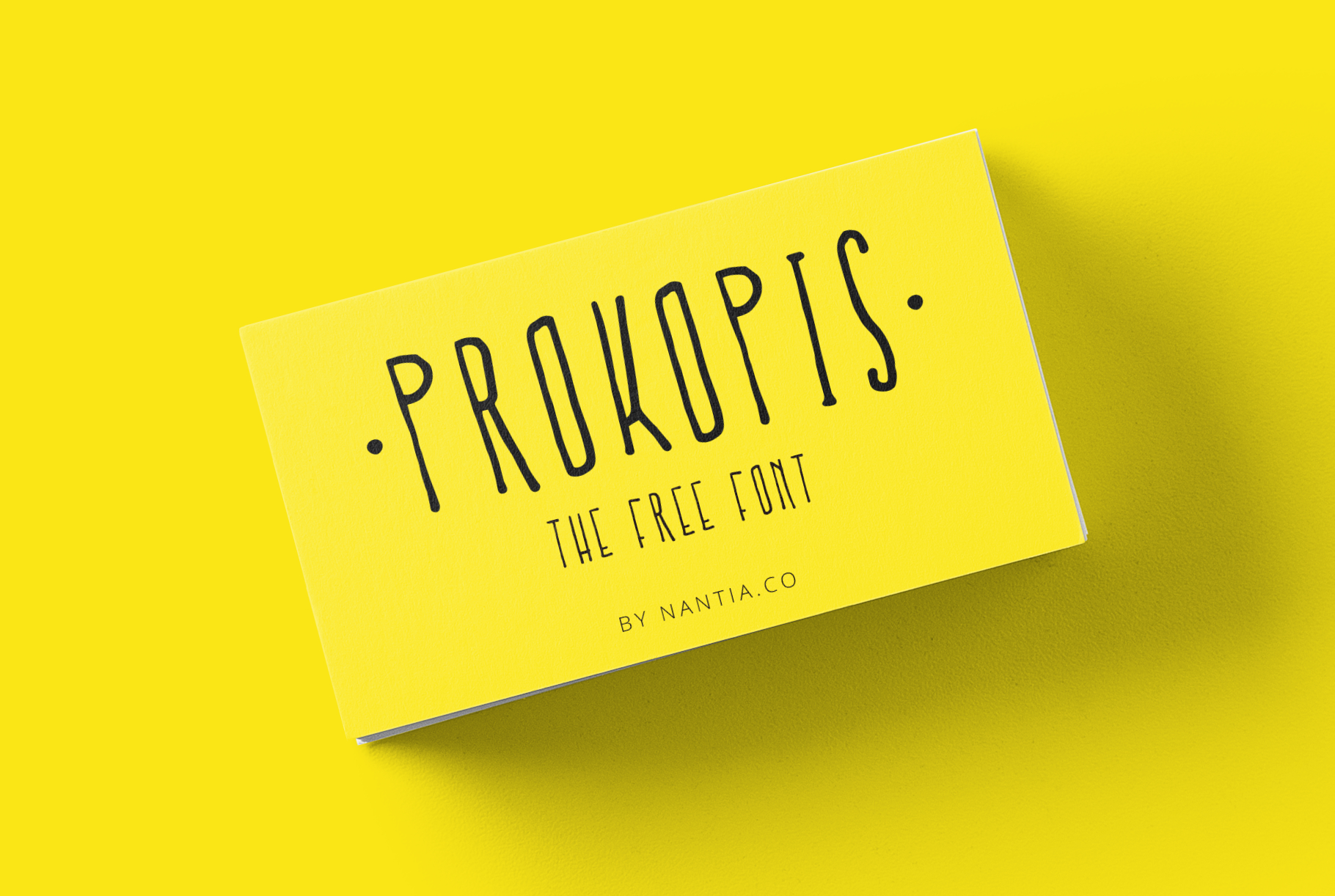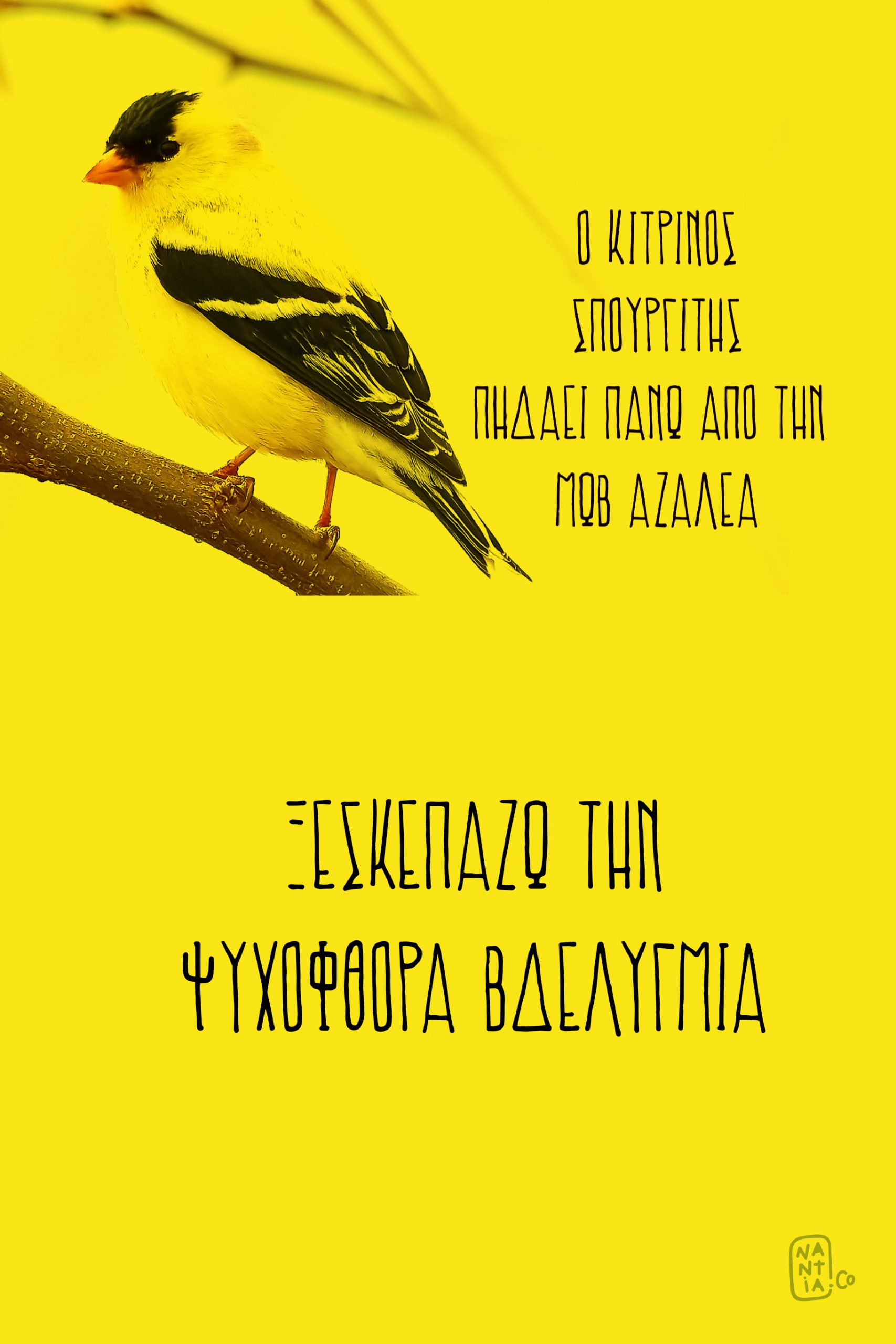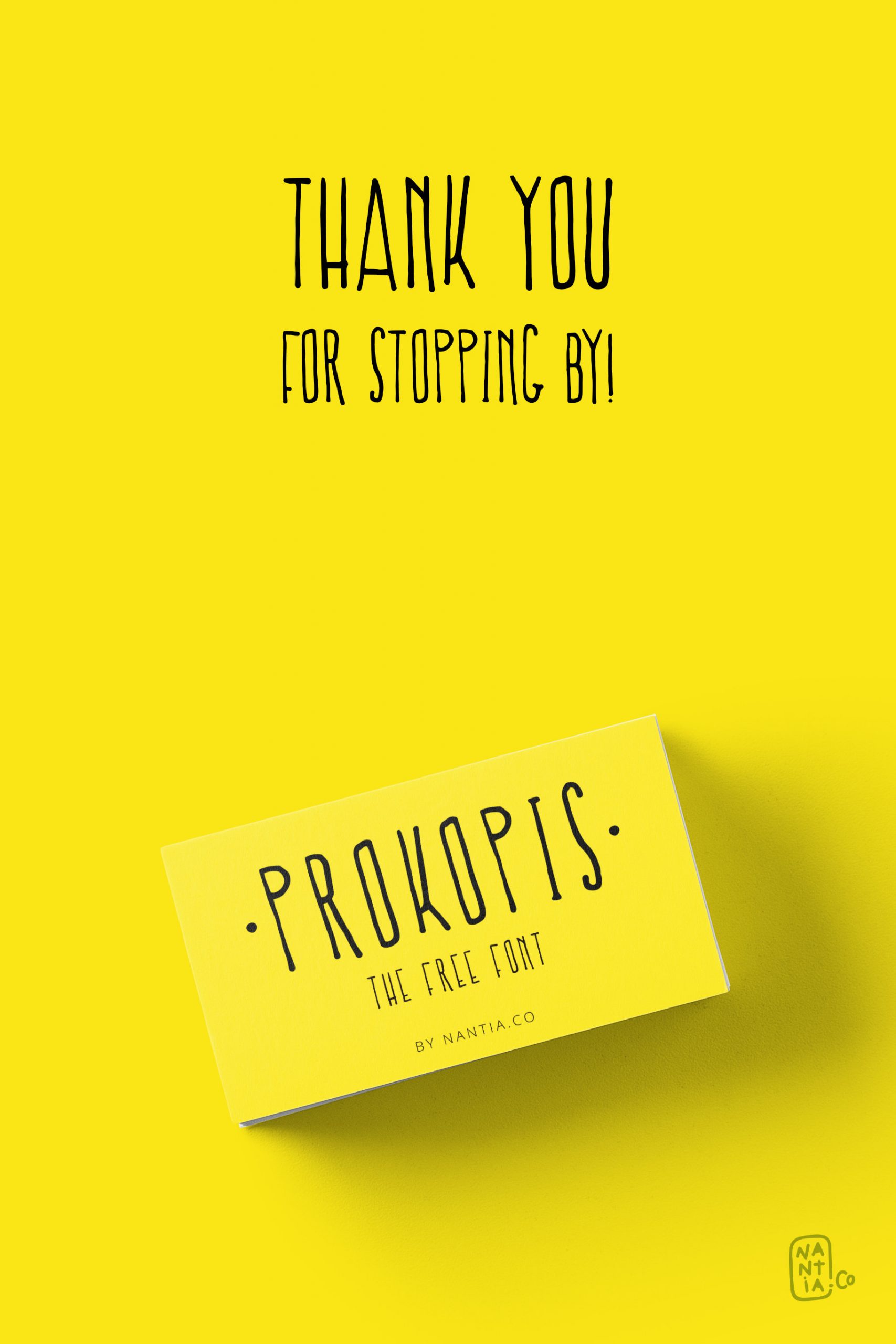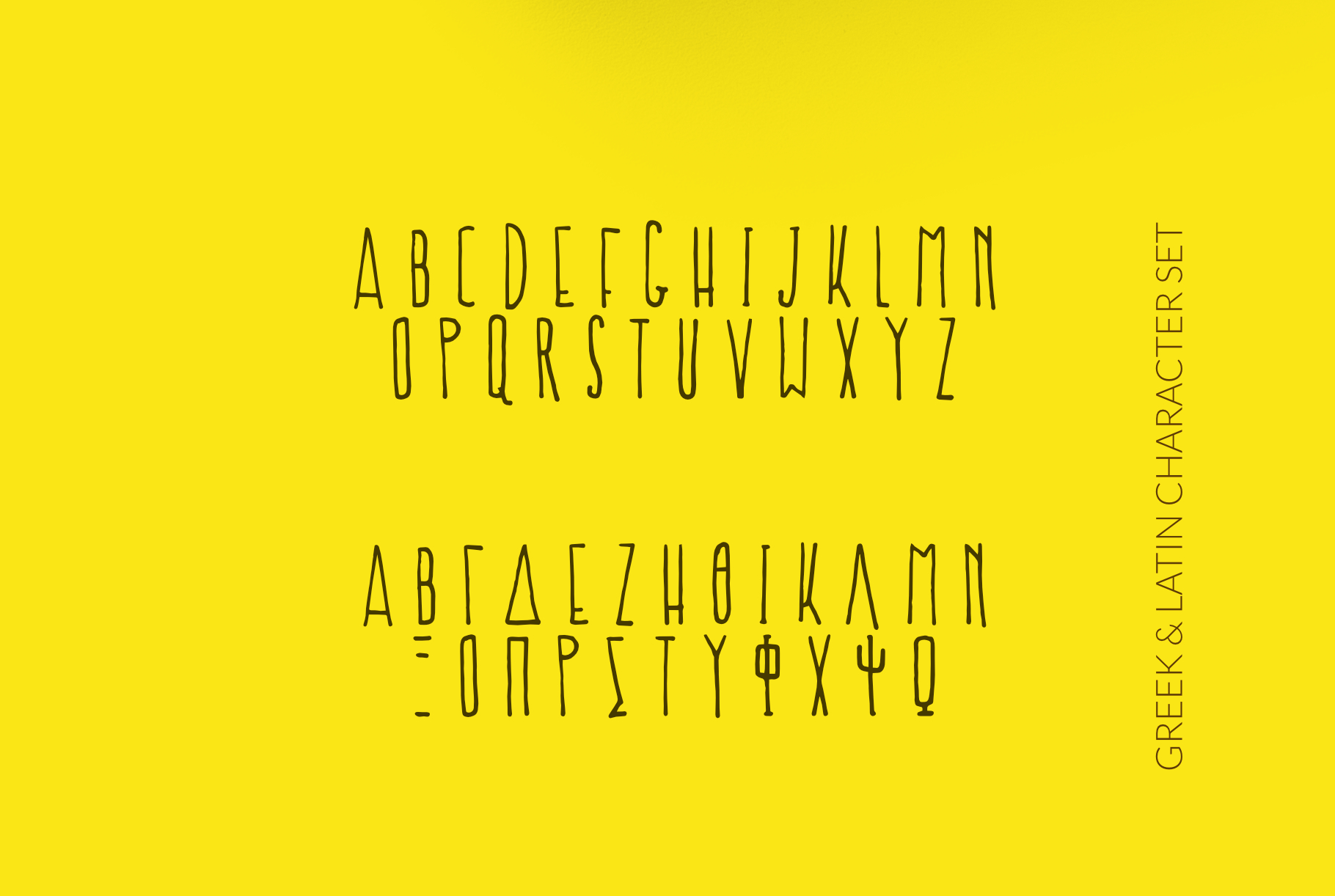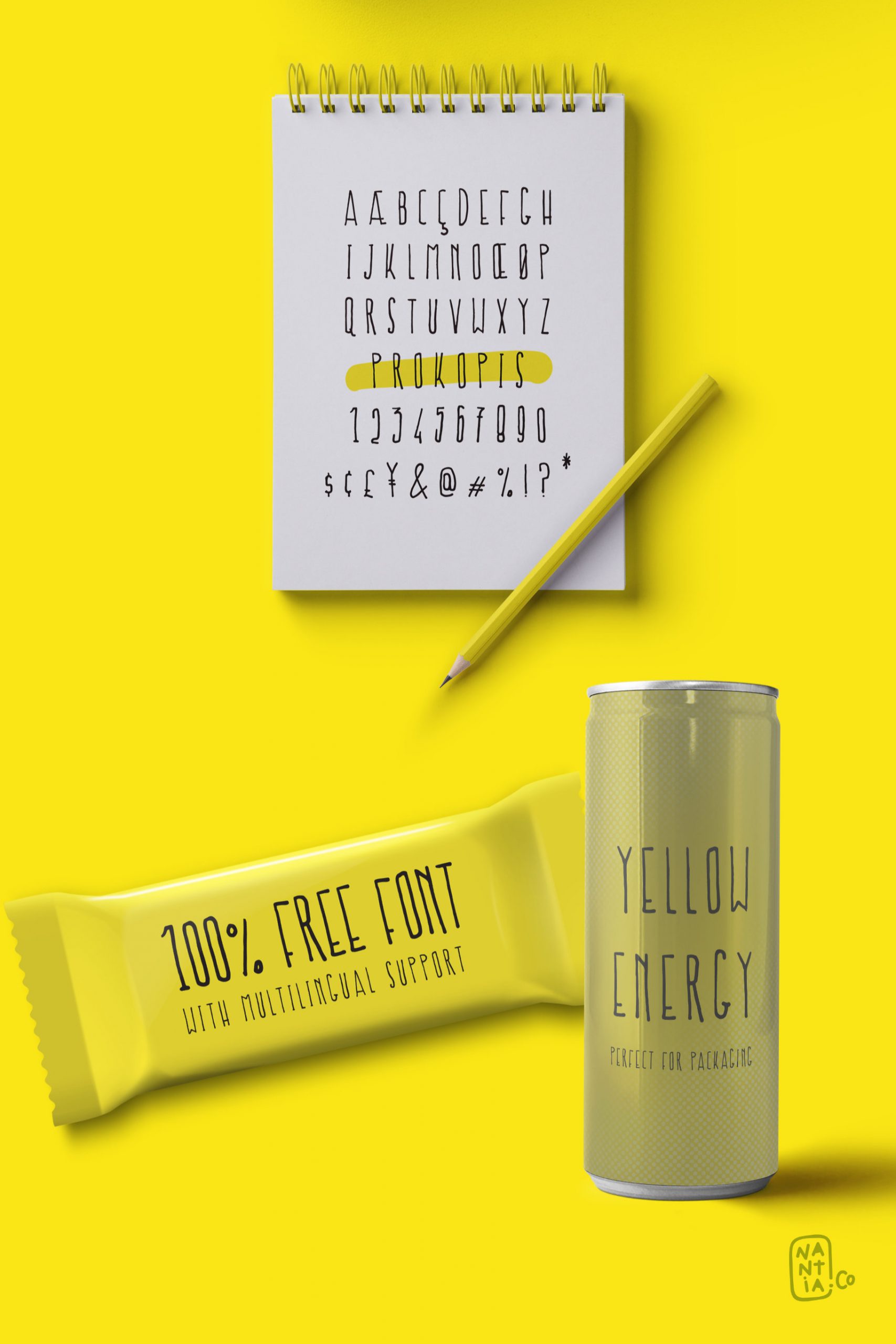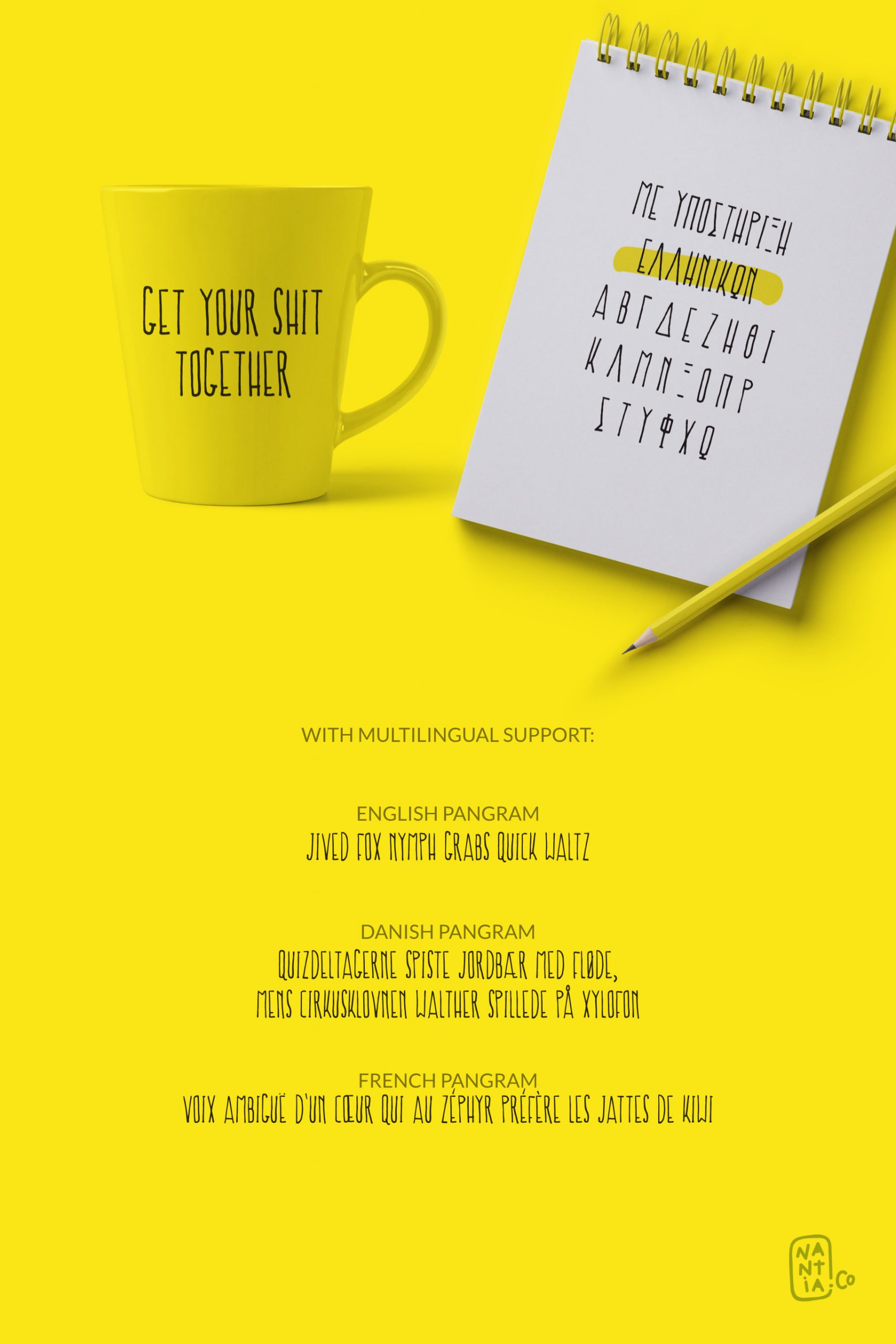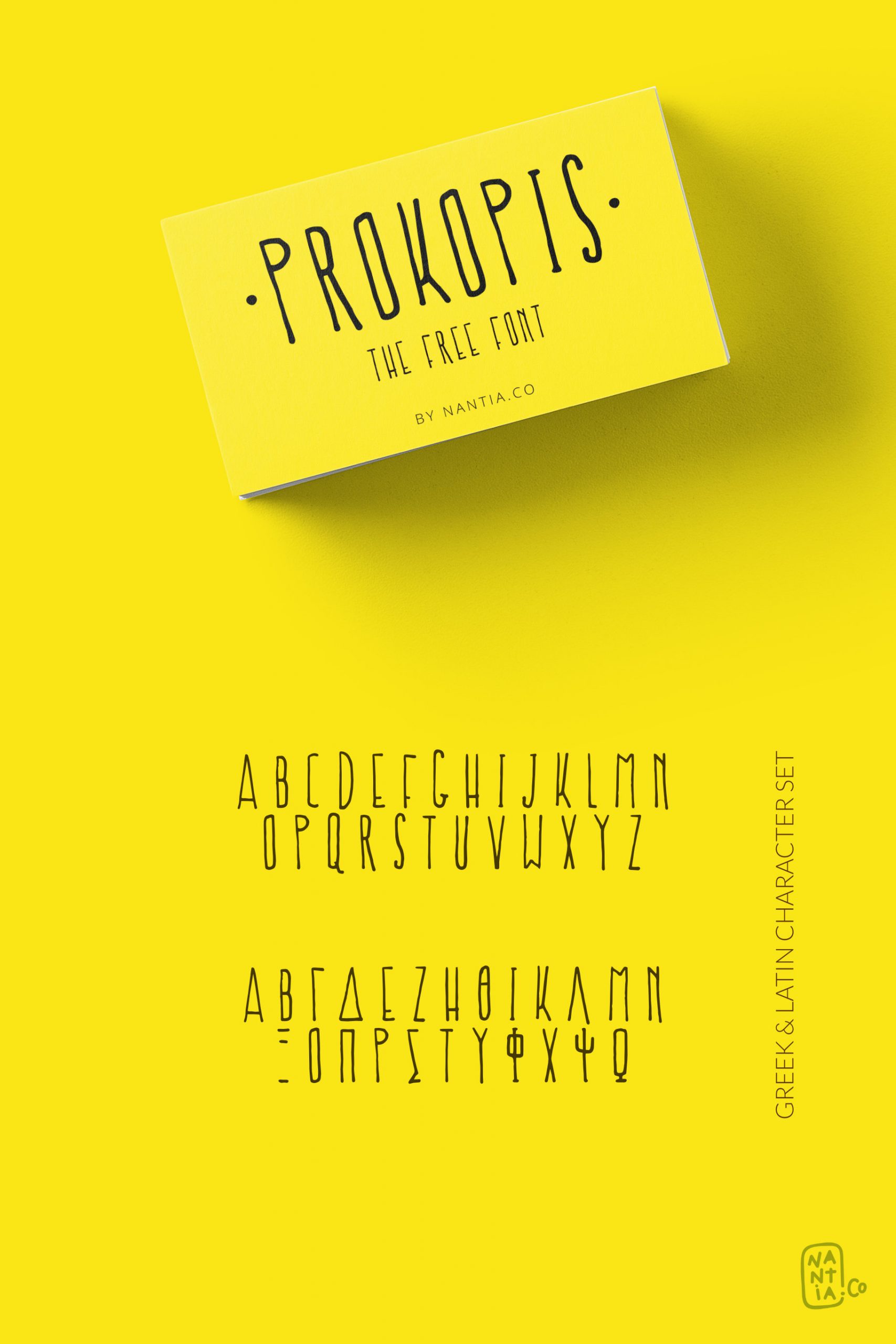
Prokopis, the Free Font.
Free Font Prokopis is a multilingual handmade font with Greek (of course), Latin character set, and diacritics. With this typeface, you can achieve a handwritten-type lettering feeling. Food packaging, restaurant menus, coffee and bar menus, and food industry branding are some examples of the numeral applications of this typeface. Not only, the shabby-chic style of the font is perfect for your graphic design needs like social media quotes, blog headers, posters, art projects but also for packaging, and logotypes. And it’s completely free!